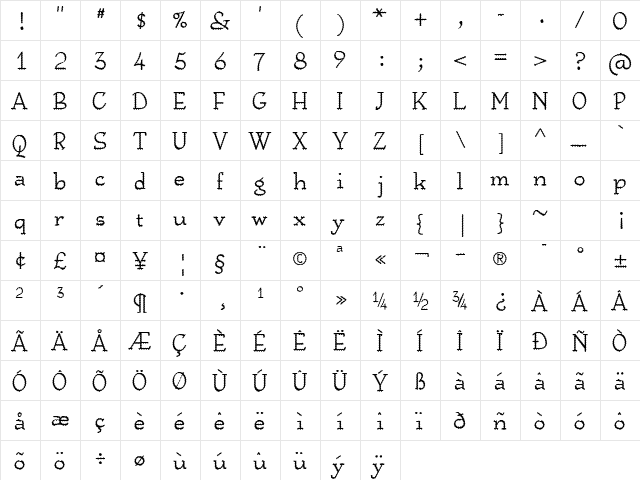
AnarckhieJiggled Regular
Design Context for AnarckhieJiggled Typeface
AnarckhieJiggled is a composed and adaptable typeface that performs quietly and consistently across a wide range of design contexts.